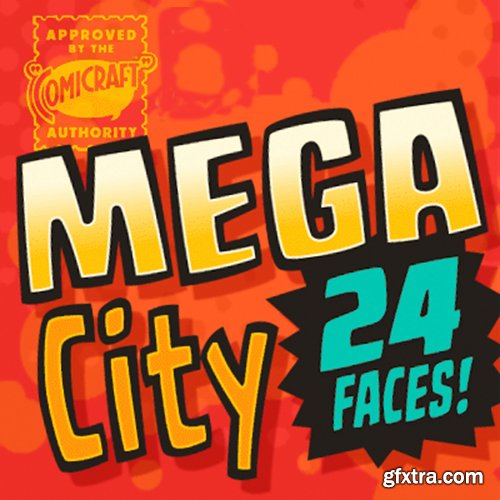
- If your computer infrastructure is already Dredd-fully overcrowded with fonts, this set won't help you any. Like any self respecting city-state, virtual or otherwise, MEGA CITY will cover pretty much the entire Eastern motherboard of your computer, providing a veritable urban sprawl of faces to populate your matrix. Secure, welcoming and utilitarian, MEGA CITY is perfect for massive tower block lettering or ultra wide-lane MegaFreeway signage. Mega citizens may feel that this font set makes hyperreality fonts seem unreal in comparison -- and 800 million people can't be wrong!